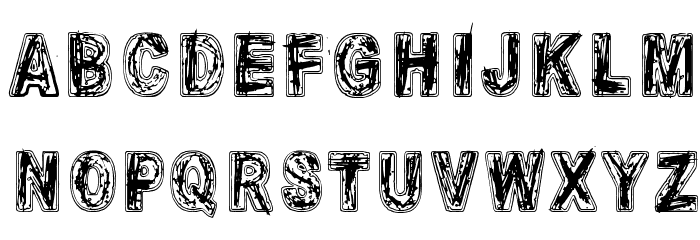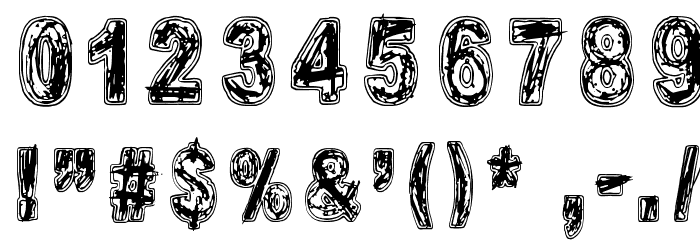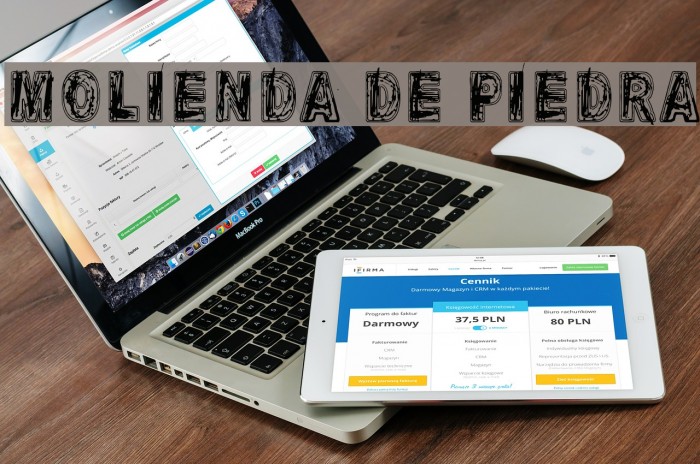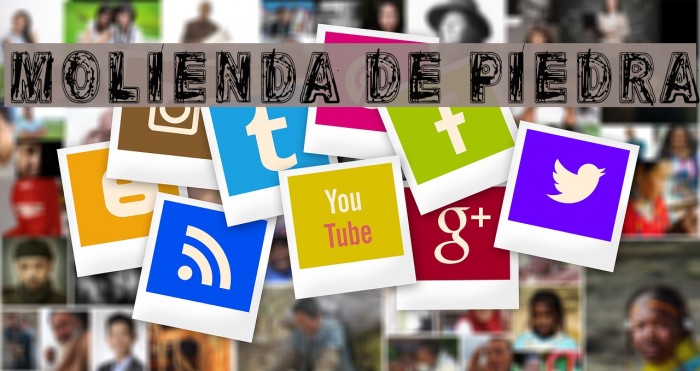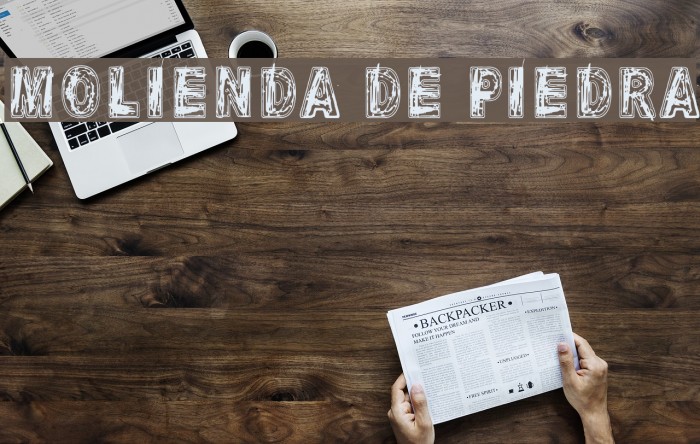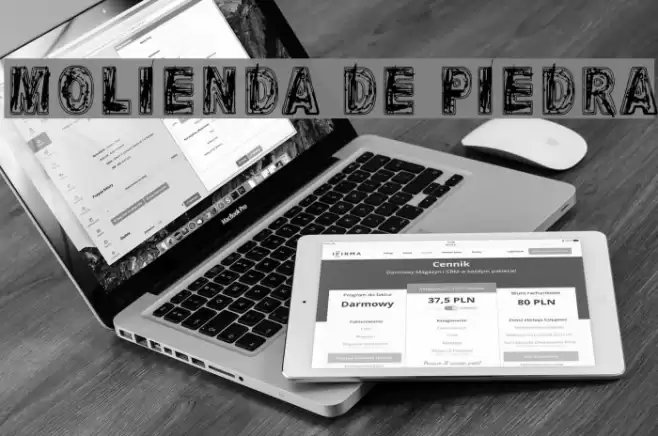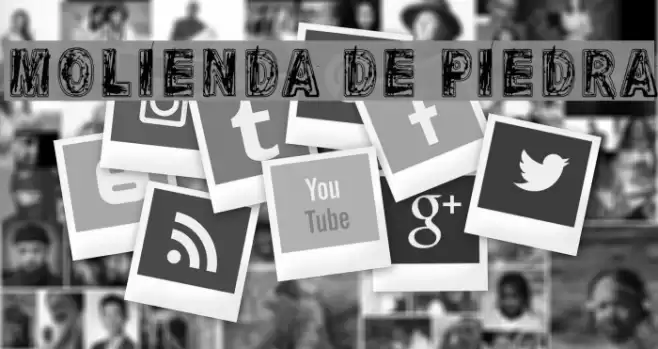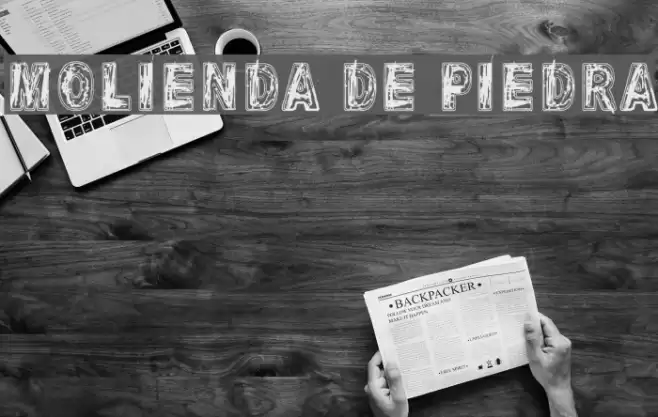
Molienda de piedra Font
This font features a bold, distressed style with a hand-drawn appearance. The characters are outlined with rough, uneven edges, giving them a textured, grungy look. Each letter and number is filled with a pattern that resembles scratches or worn surfaces, adding to its rugged aesthetic. The font maintains a consistent weight throughout, with a slightly condensed width that enhances its boldness. The character spacing is normal, allowing for readability despite the intricate detailing. This font's unique style makes it stand out, suitable for projects that require a raw, artistic touch.
A bold, distressed font with a hand-drawn, textured appearance.
- Proposed Projects: Ideal for posters, album covers, branding for edgy or artistic products, and any design needing a rugged, handmade feel.